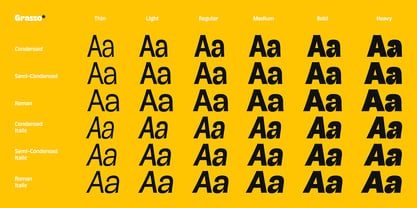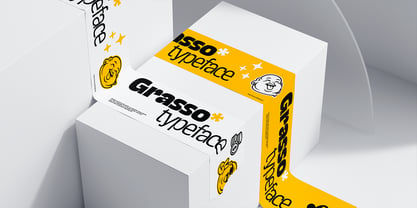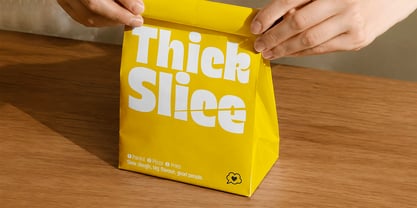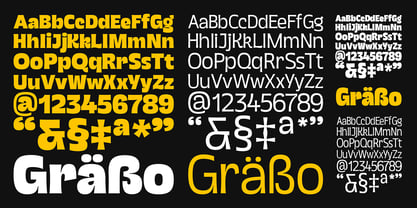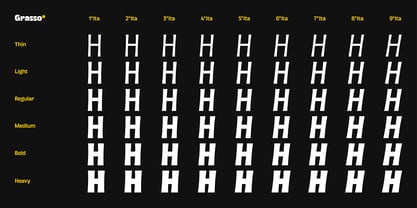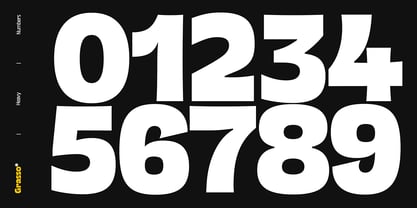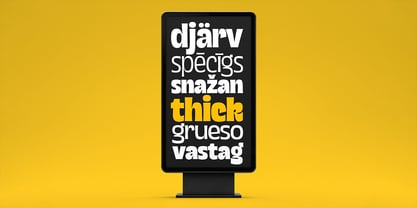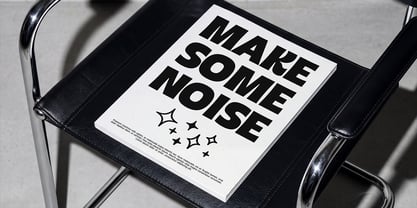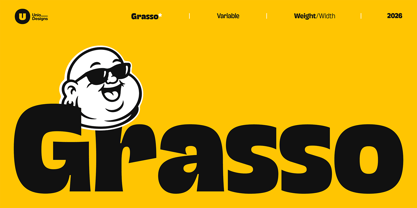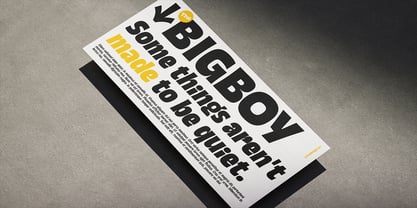
The Grasso Font Family was designed by Nicola Manzari, Bruno Pierini and published by Unio Creative Solutions. Grasso contains 37 styles and family package options. More about this family
Grasso catches the eye with well-balanced contrasts and a distinctly sharp personality. It is a characterful contemporary sans-serif type family with dynamic contrast that balances clarity with expressive individuality, allowing it to deliver high-impact display typography as effortlessly as softer, playful communication.
Built with subtle concave stems, wavy profiles, crisp terminals, and generous curves, the design blends vintage influences with contemporary flexibility, drawing inspiration from the memorable newspaper and magazine advertisements of the 1980s. The name Grasso reflects a funky design ethos that combines brutalist confidence with a warm, smiling spirit, revealing progressively more of its innate charm the bolder it gets.
Large formats such as posters and website headers represent its natural environment, grabbing the limelight with just enough quirks to hold attention while remaining exceptionally functional. Performing seamlessly across physical print and modern screens alike, it serves as an unmistakable visual voice for boutique storefronts, cafes, dining venues, and vintage interior labels, while lending immense creative depth to product packaging, book covers, record sleeves, editorial titlepieces, and digital interfaces.
The lighter weights excel as refined companions to bolder display settings, completing compositions where heavier instances dominate, while also serving as reliable partners in both daring and conventional typographic pairings across editorial and branding projects.
To grant complete creative freedom across diverse design contexts, Grasso offers an extensive family matrix spanning six calibrated weights from Thin to Heavy across three distinct widths including Roman, SemiCondensed, and Condensed, where every single instance across all widths and weights is accompanied by its own matching expressive italic. For modern digital workflows, the included variable font consolidates both the weight and width axes into an efficient, lightweight package, unlocking infinite intermediate styles with absolute precision, fully complemented by an extensive collection of stylistic alternates across numerous glyphs and broad Latin multilingual support.